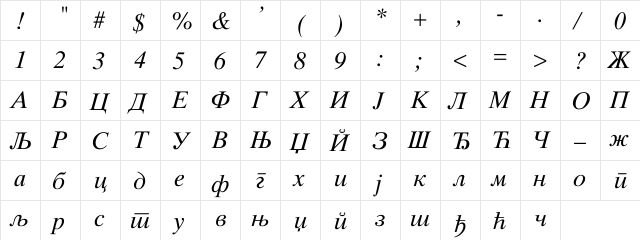
CYDutchI Regular
Design Context for CYDutchI Typeface
CYDutchI offers clean, dependable letterforms without strong stylistic allegiance, making it a practical choice for designers who need flexibility.